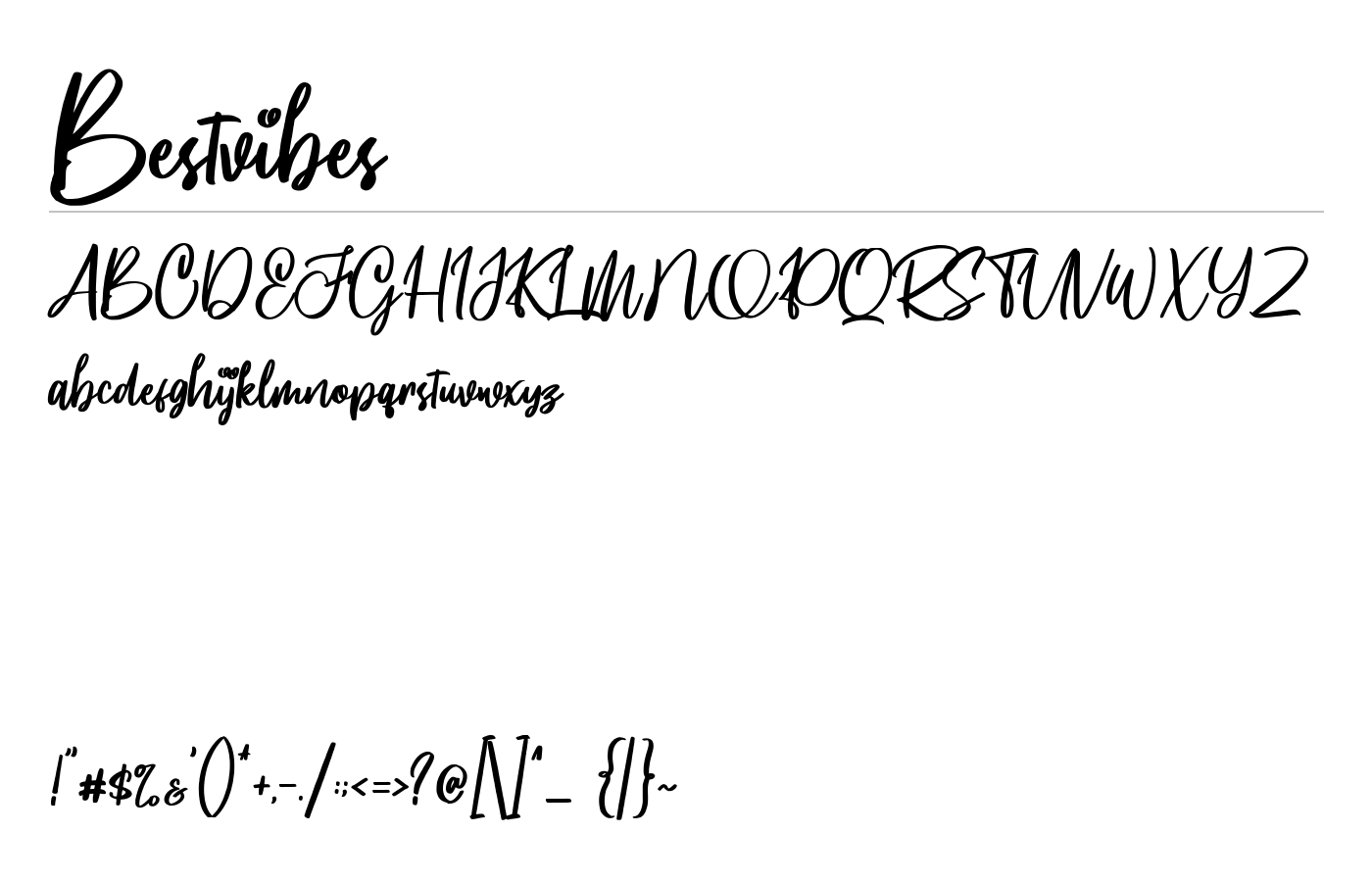
Bestvibes Font is a lively and elegant script font characterized by its smooth, flowing strokes and a slightly casual, handwritten feel. It features a mix of thick and thin lines with playful flourishes, making it perfect for creative branding, invitations, and lifestyle projects that want to convey warmth and personality. This font works well for headlines, logos, and designs that benefit from a friendly yet stylish handwritten touch.
Bestvibes Font
About Bestvibes Font